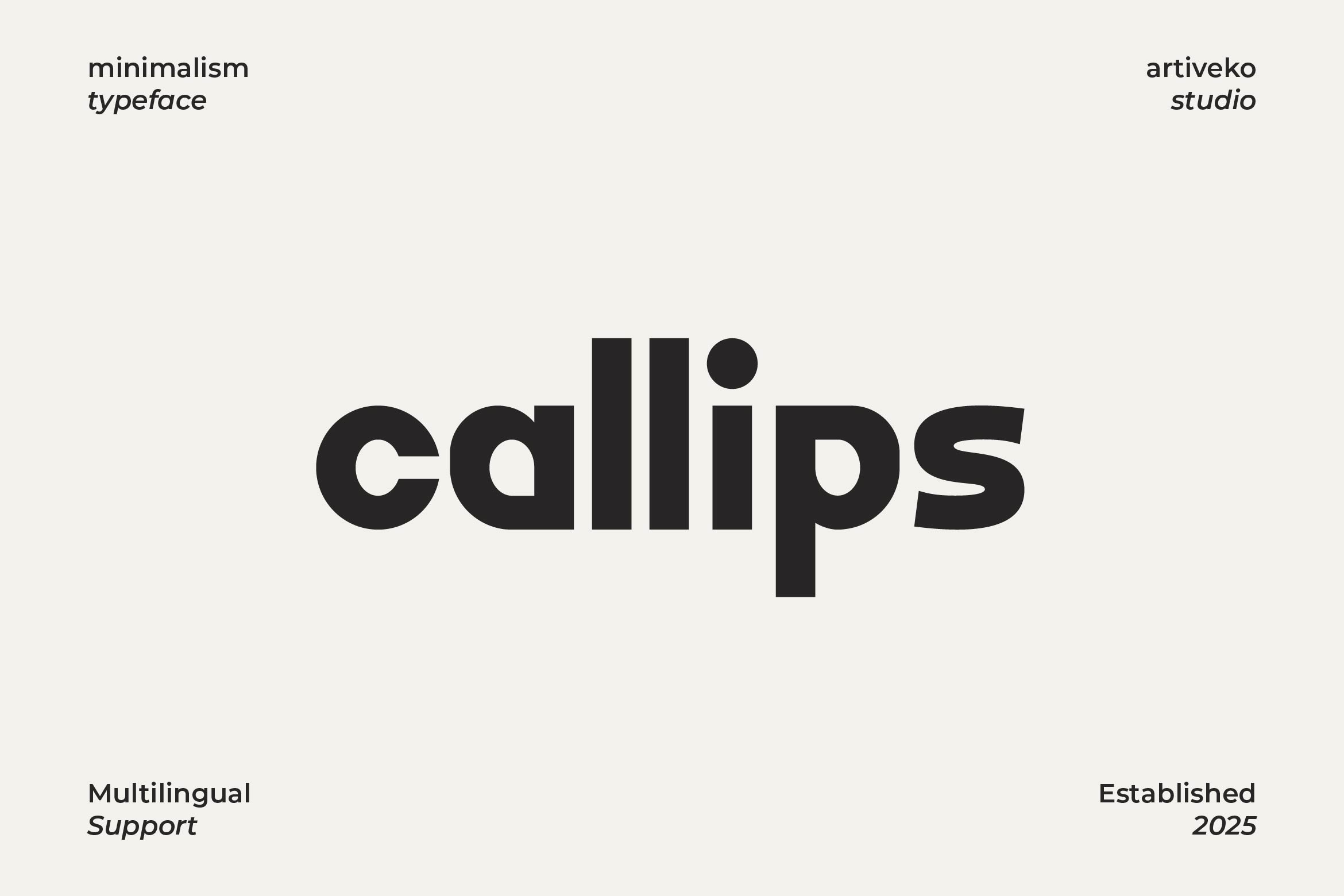
- Callips Modern Logo Font
Callips is a sleek and contemporary typeface crafted for designers who value clarity, elegance, and versatility. With clean geometric lines, balanced proportions, and a subtle modern flair, Callips is ideal for creating high-end brand identities, professional logos, packaging, website headers, and editorial layouts that demand a refined yet approachable look.
Its minimalist structure ensures maximum readability while maintaining a distinctive style, making it perfect for both bold statements and understated typography. Whether used for fashion branding, creative studios, tech startups, or lifestyle products, Callips brings sophistication and timeless appeal to every project.
The font comes complete with uppercase and lowercase letters, numerals, punctuation, multilingual support, and carefully designed kerning for a polished result. Its versatile style pairs beautifully with both serif and script typefaces, allowing endless design possibilities.
Elevate your branding with Callips — a modern logo font that blends precision, style, and functionality for standout designs.